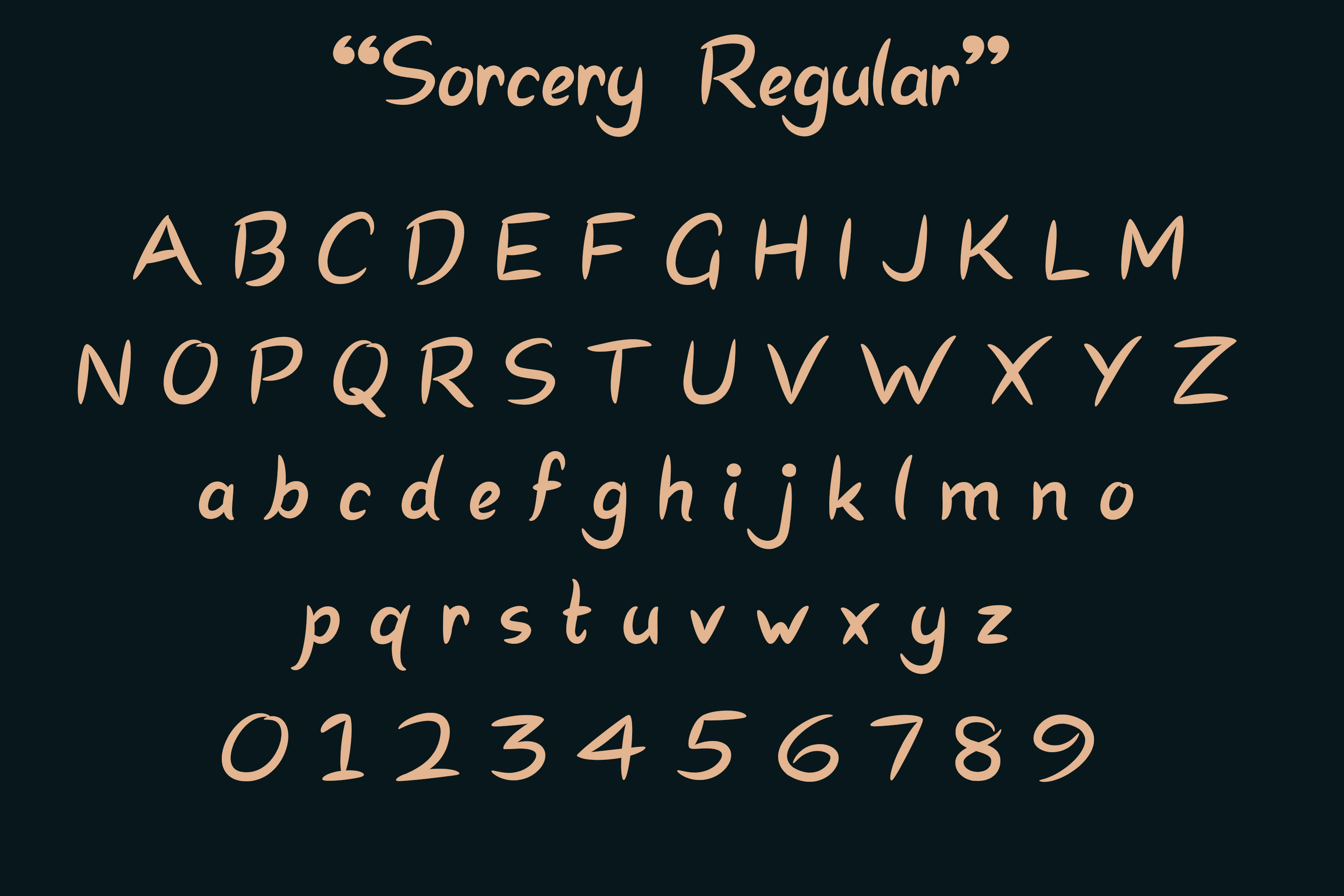
Make your creative design with “Sorcery Font” 3 in one family Font with all special characters suitable for any creative design
Sorcery Font Information :
Sorcery Font is a Stylish Font, Available in
- Sorcery Regular
- Sorcery Style
- Sorcery Brushy
Suitable For:
- Magazine design
- Cover design
- Flyer design
- Poster design
- Display font
- Web site Slider Font
- Presentation template
- Headline font
- Product name
- Magazine design
- Cover design
- Flyer design
- Poster design
- Display font
- Web site Slider Font
- Presentation template
- Headline font
- Product name